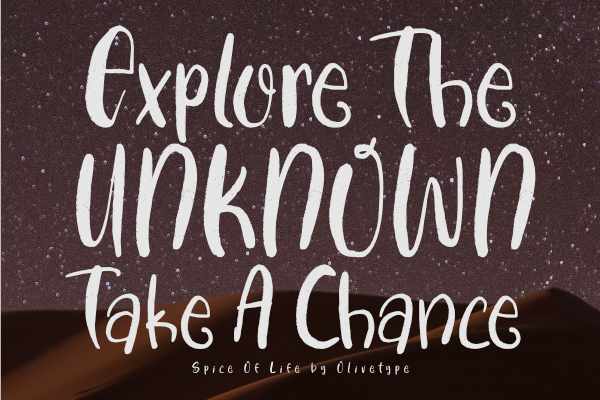
Bring a little extra flavor to your designs with Spice of Life, the perfect display font for logos, posters, and movie titles. Its unique brush typeface gives it a bold yet elegant look that will stand out in any design. Unleash your creativity with Spice Of Life and give life to your projects today!